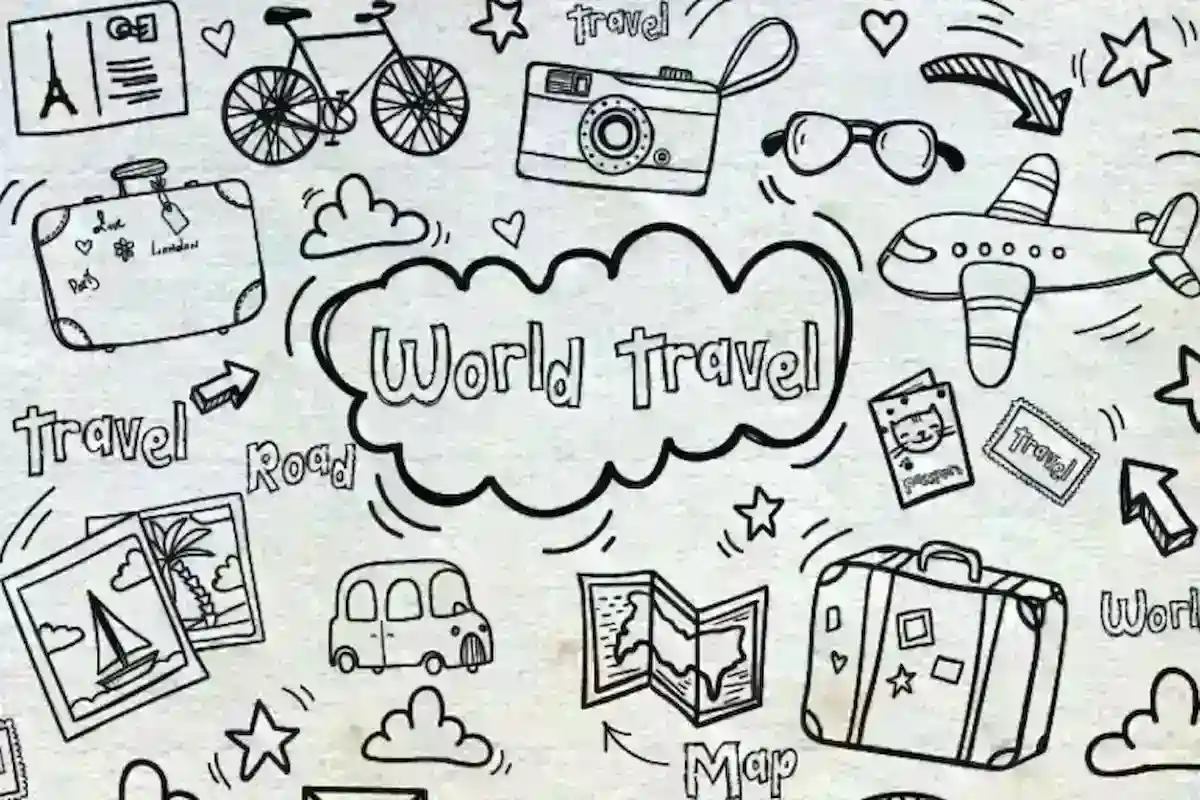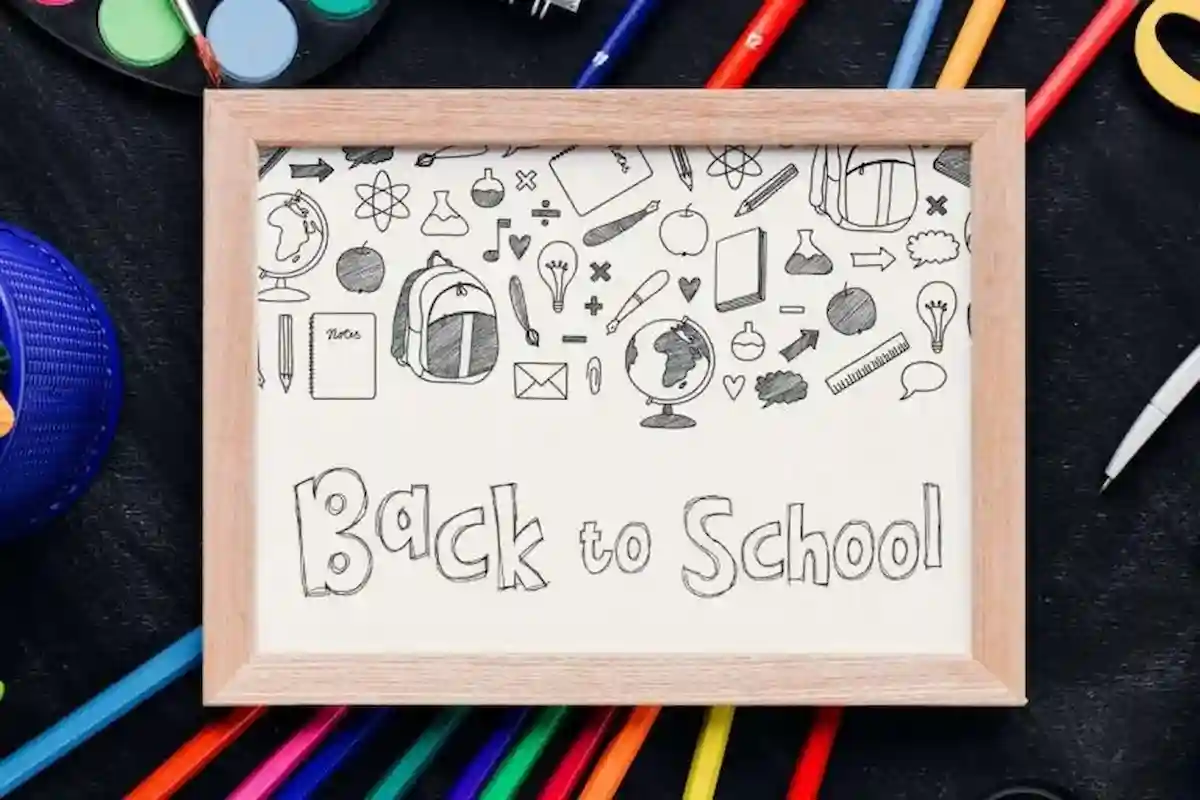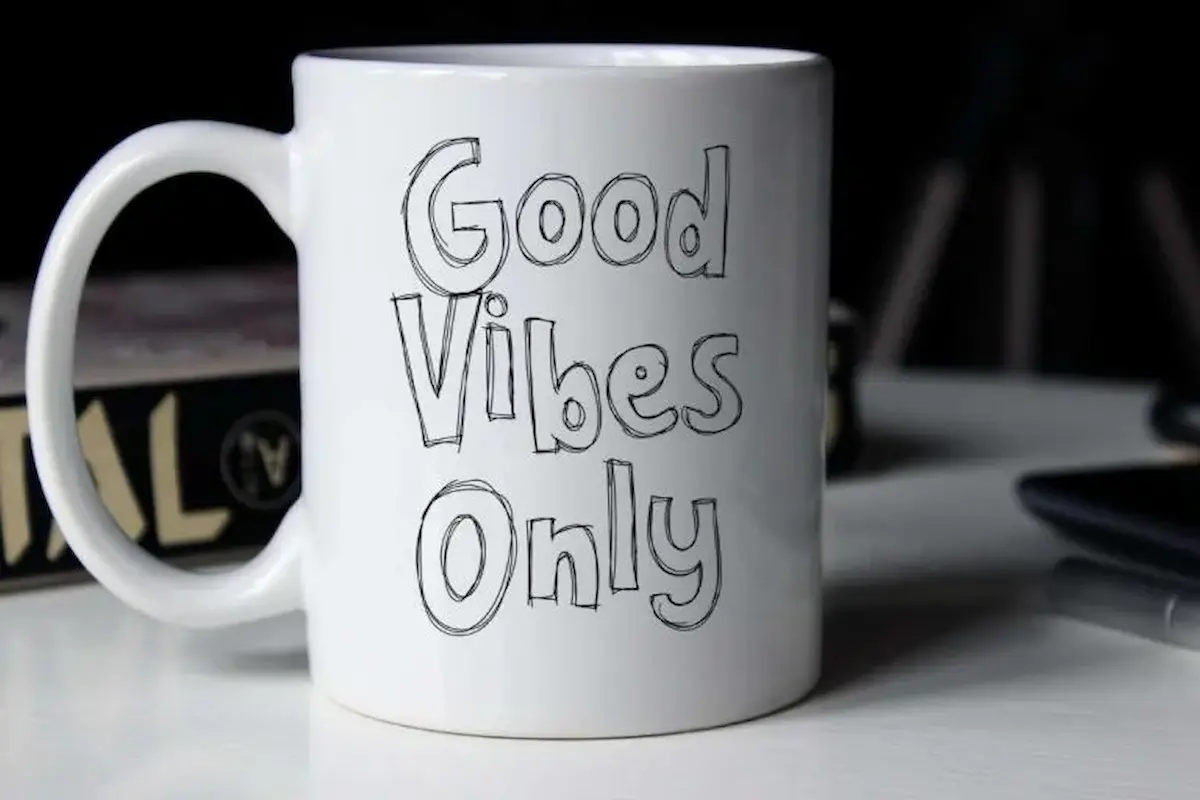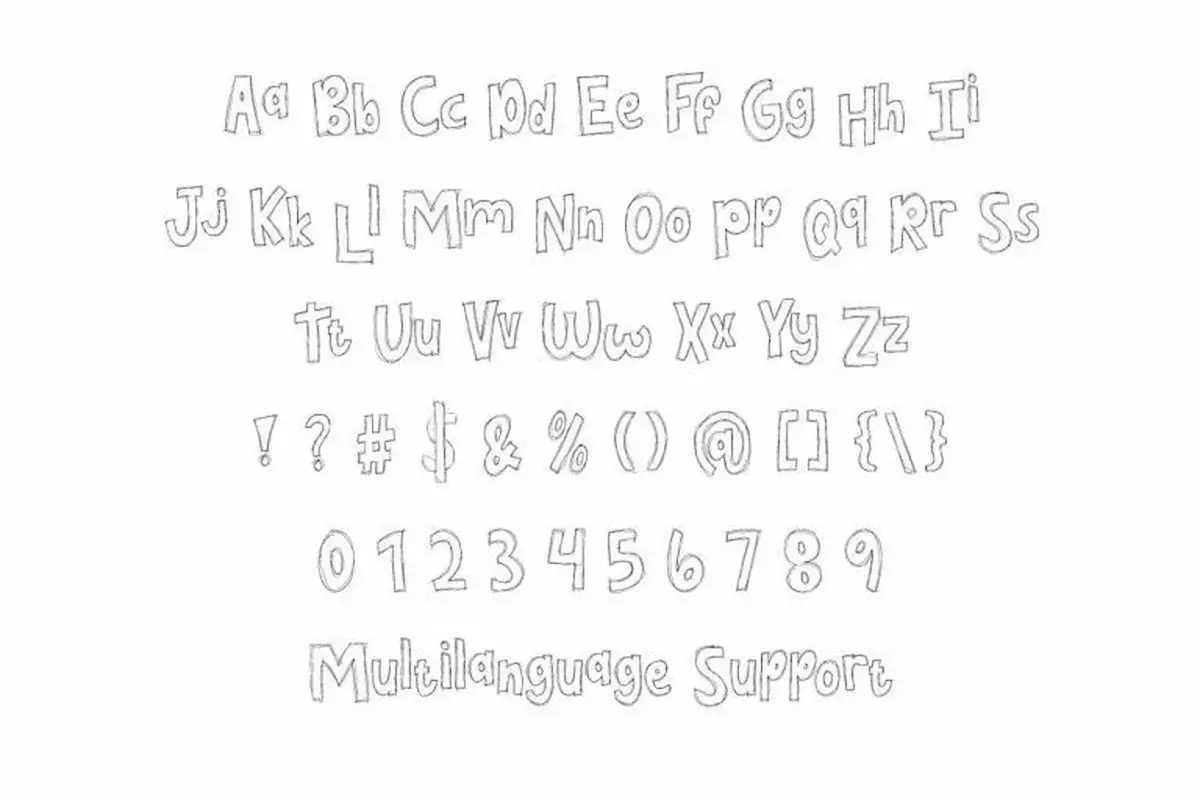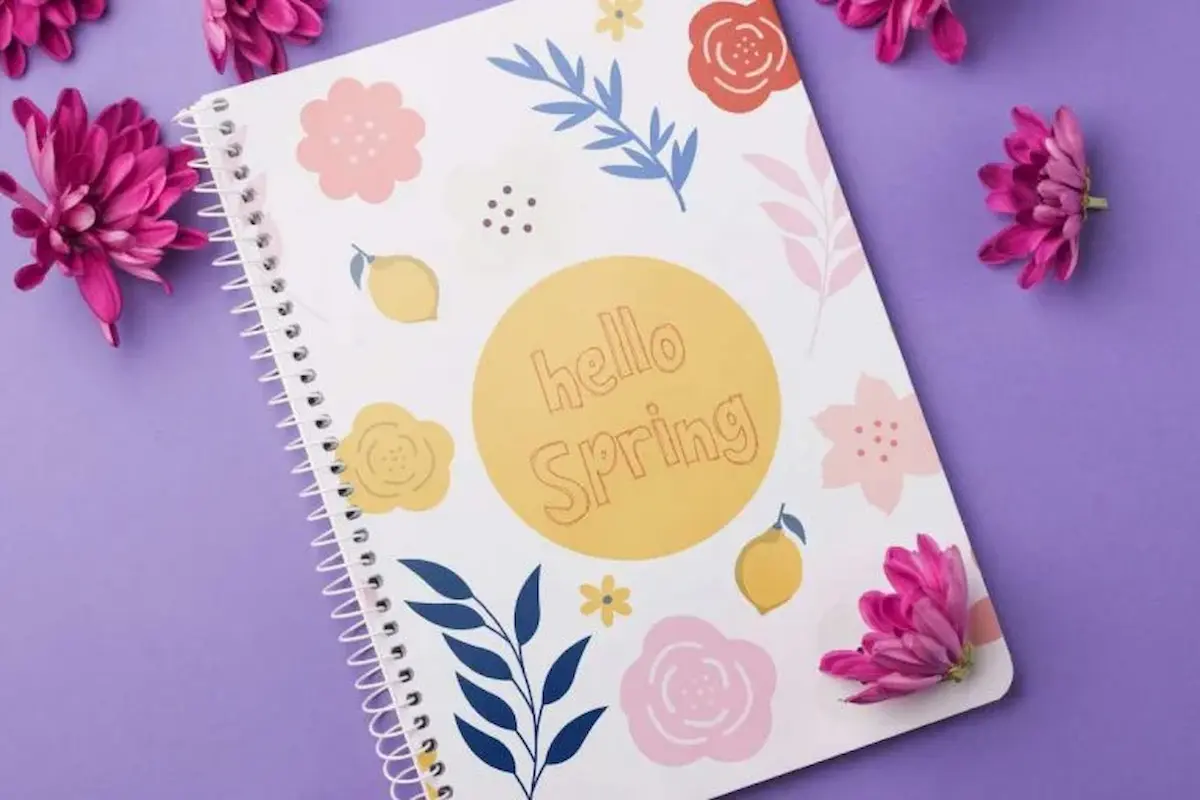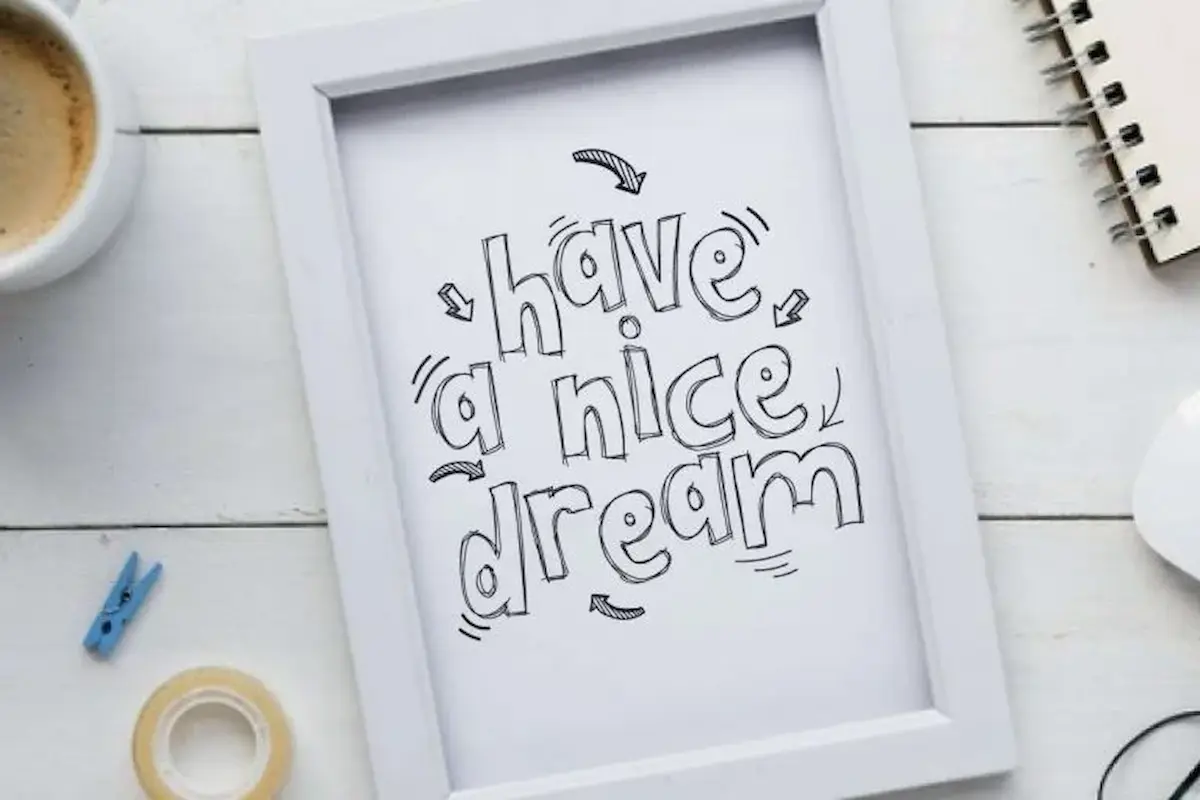
Doodle Sketch Comic Font
Doodle Sketch Font is a classic display font with cartoon and kids related theme. The font is exclusively designed by NihStudio, made in 2021. The Font will great for comic, kids product, education, school etc
Doodle Sketch Font – Playful Handwriting Pencil Typeface
About the Doodle Sketch Font
Designed by NihStudio, Doodle Sketch Font comes in two styles: Sans/Serif giving you flexibility for different design needs. The font package includes:
Handcrafted in our studio in Indonesia, each letter has been carefully drawn and digitally refined to ensure well-spaced characters and professional kerning. This results in a font that is both visually appealing and highly readable.
Where to Use This Font
Doodle Sketch Font is highly versatile and works for a wide range of projects, including:
• Branding & Logo Design
• Stationery and Business Cards
• Flyers, Posters, and Brochures
• Product Packaging and Merchandise
• Signage and Menus
It’s especially popular in industries like comics, children’s products, schools, restaurants, music, and creative arts.
Why Choose Doodle Sketch Font?
• Unique pencil-drawn handwriting effect
• Two versatile styles for creative flexibility
• Works in both print and digital media